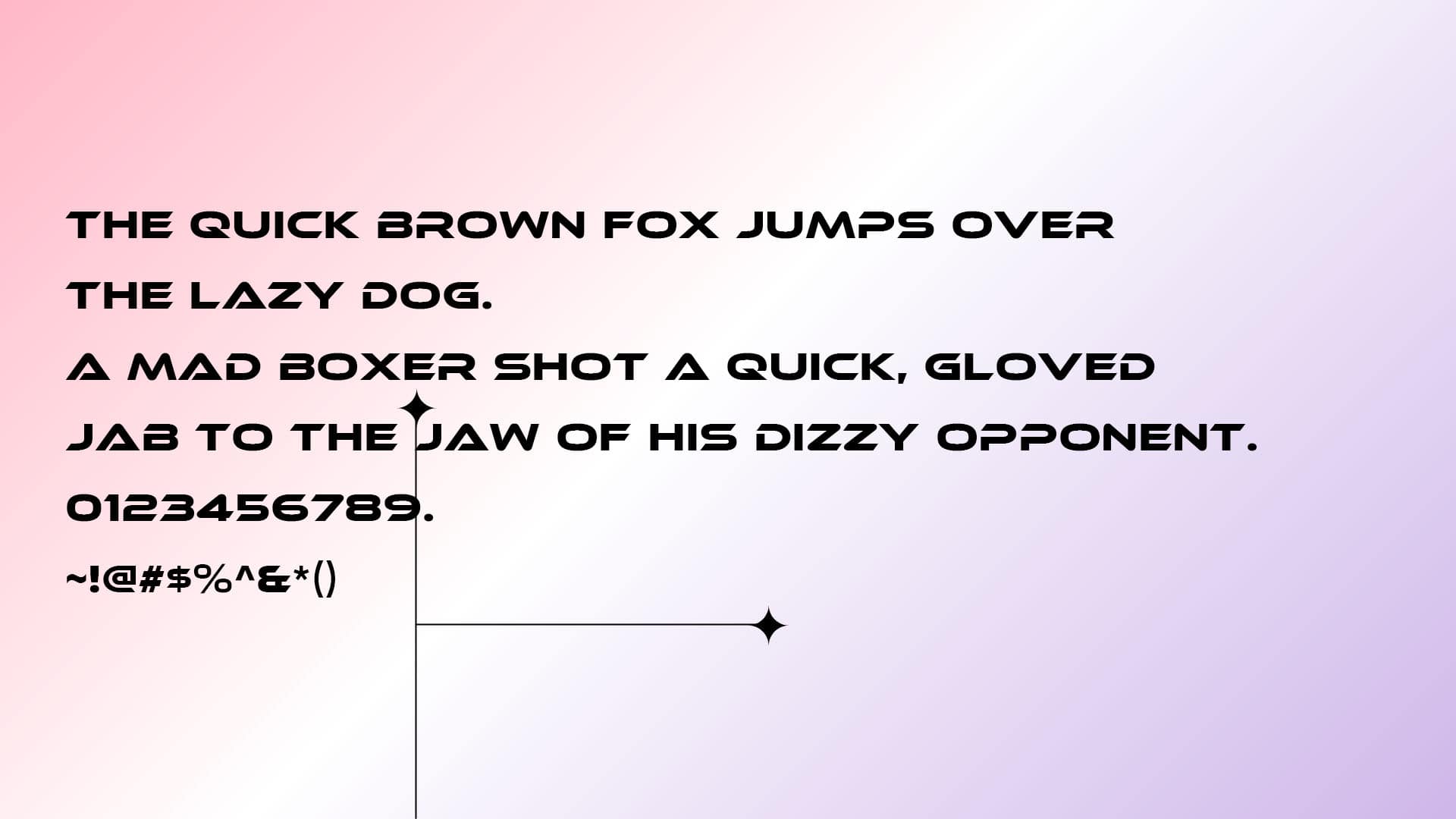
The Ethnocentric Font belongs to the Sans-Serif typefaces fonts. It falls in the category of Display fonts because of its bold and catchy look. The designer of this font is Raymond Larabie who is also known as Ray. The official release date of this font is August 3, 1999. The Official publisher of this font is “typodermicfonts”.
Its clean outward form and conservative look make it the most famous. It has all the good qualities which a good typeface should possess. Designers are happy to use this font because it allows them to make sophisticated designs in no time. It is without any doubt a very good-looking font.
Who Used Ethnocentric Font?
Graphic designers use this font worldwide for making Logos, Motion Graphics, Web pages, Prints, Posters, Flyers, T-Shirts designs, and in everything one can think of. It is even in use with the combination of its alternative fonts such as the Austin, Gotham Bold, and Tron Font to make exciting designs.
This font can be used in any way possible that someone can think of. Print media also uses this font for printing different things. Many designers have this font in their library and they use it with its other alternatives and combinations to make amazing animations and gifs also.
This font is also used in web apps and mobile phone apps. It is highly readable on small phone screens as well. Many designers suggest this font for women’s saloons, parlors, and other girls’ places because it gives them a more feminine and softer look. It is also used for making book titles.
Ethnocentric Font Family Appearance
| Name | Ethnocentric Font |
| Designer | Raymond Larabie |
| Style | Sans-Serif |
What is Ethnocentric Font?
It is a Sans-Serif font. It falls in the category of Display fonts because of its bold and catchy look. The designer of this font is Raymond Larabie. He is also known as Ray. The official release date of this font is August 3, 1999.
Can I use Ethnocentric Font for my logo?
Yes, you can use this font for your logo. This font is already in use by so many brands. They use it in their logos and also in their advertisement content. This font is in use for all kinds of designs.